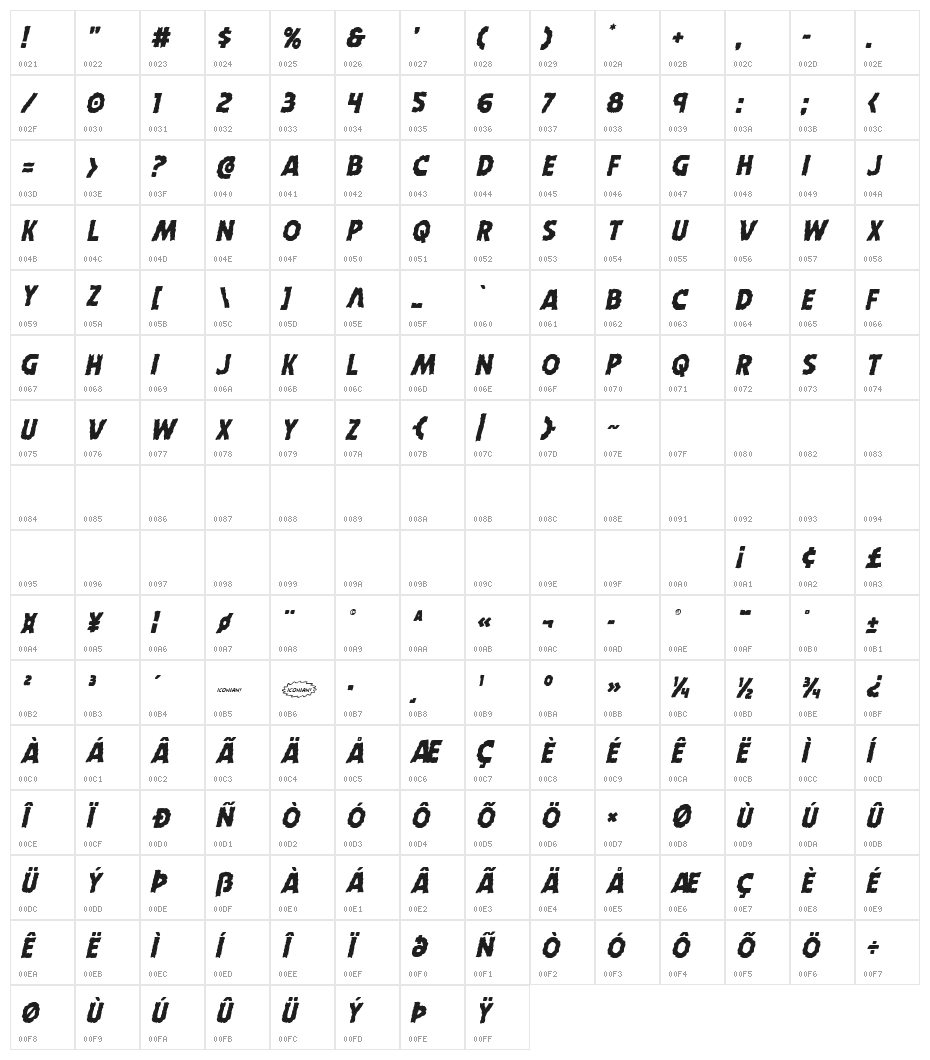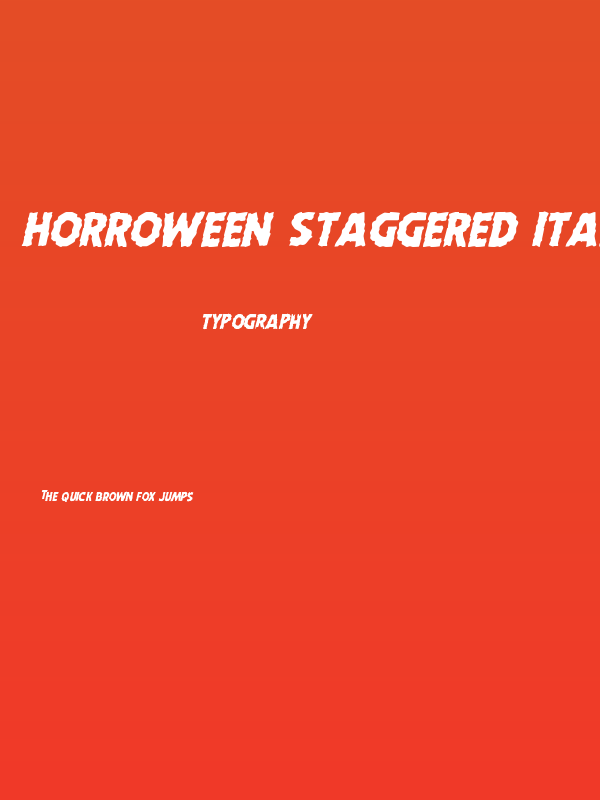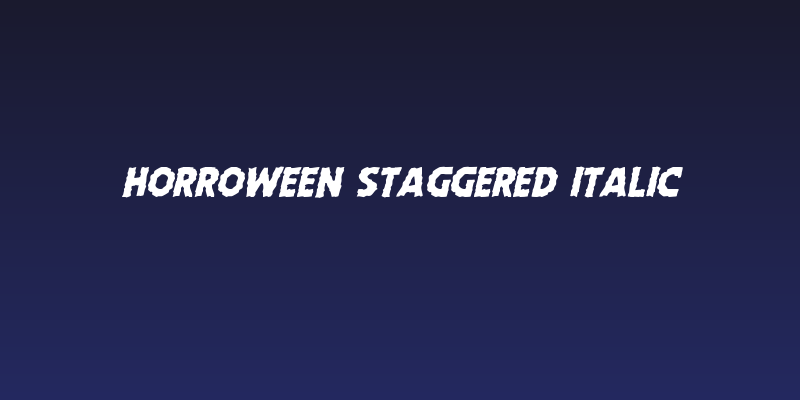
Horroween Staggered Italic Font
Horroween Staggered Italic Description
This font features a bold and jagged design, reminiscent of torn paper or rough edges, creating a sense of horror and unease. The letters are italicized, adding a dynamic and unsettling feel. The uppercase and lowercase characters maintain a consistent style, with irregular edges and a slightly staggered appearance. Numbers and special characters follow the same theme, ensuring a cohesive look across all elements. This font is perfect for projects that aim to evoke a spooky or eerie atmosphere, such as Halloween-themed designs or horror movie posters.
| Proposed Projects | Ideal for Halloween designs, horror movie posters, haunted house flyers, and eerie event invitations. |